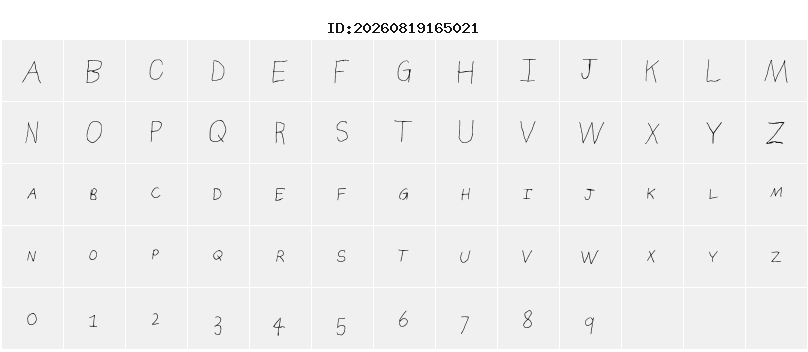
Sierra Nevada Road SC Preview
Sierra Nevada Road SC.otf is a modern, elegant sans-serif font designed for ultimate readability and visual harmony. Perfect for branding, headlines, web design, and print materials.